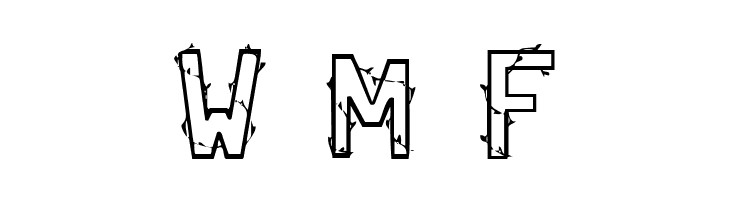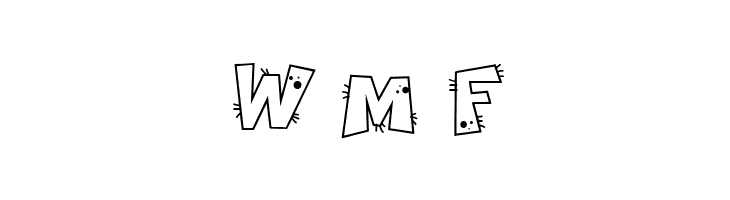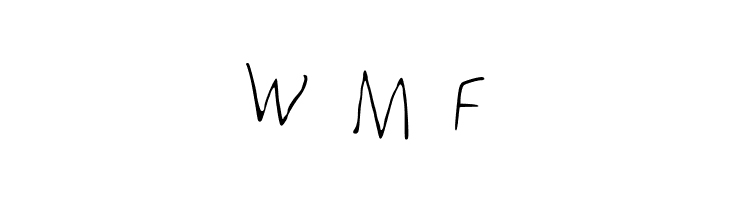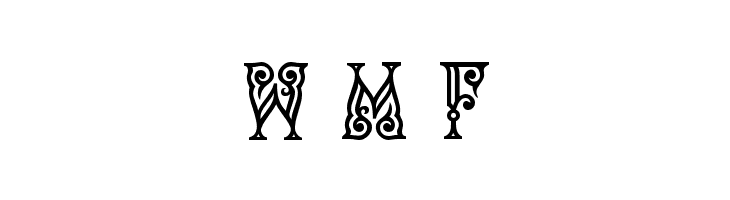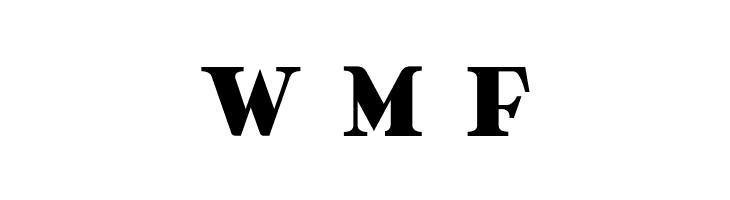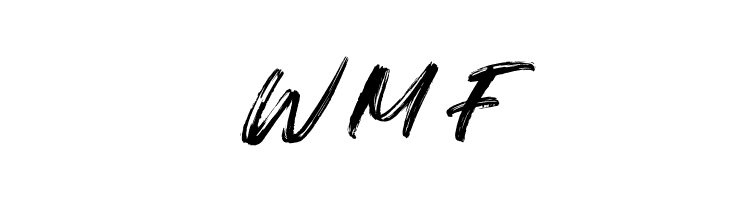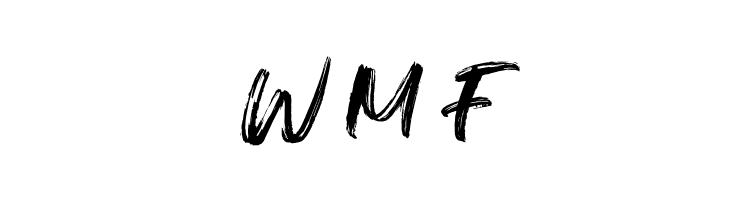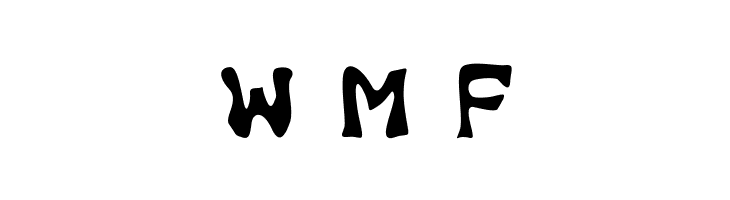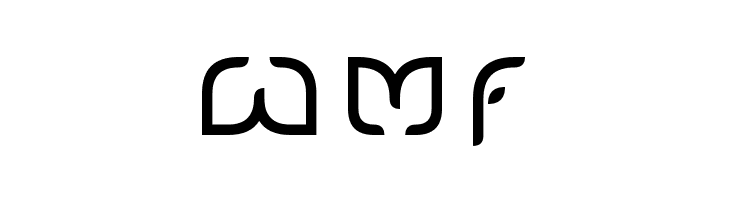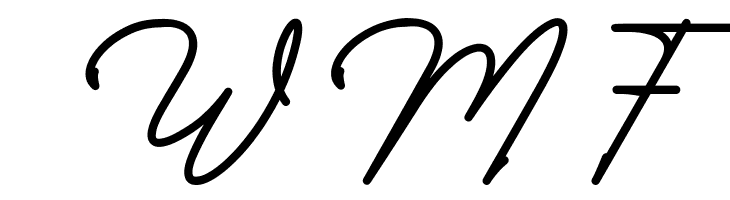
A pixelated, retro-style font with a blocky, digital appearance.
A pixelated, retro-style font with a digital, blocky appearance.
A pixelated, retro-style font inspired by early digital typography.
A pixelated, monospaced font with a retro digital style.
A playful, hand-drawn font with whimsical details and a bold, cartoonish style.
A modern, italic font with sleek, consistent strokes and a dynamic appearance.
A modern, geometric font with angular, futuristic styling.
A modern, futuristic font with bold, curved lines and a dynamic style.
A decorative font with floral and vine embellishments for a whimsical, nature-inspired look.
A decorative font with plant-like embellishments entwining each character.
A bold, medieval-inspired font with decorative swashes and sharp serifs.
An ornate, decorative font with intricate details and bold outlines.
A classic blackletter font with ornate, angular letterforms and decorative flourishes.
A playful and casual script font with flowing, connected letters.
A bold, high-contrast serif font with angular details and strong presence.
A bold, high-contrast font with a striking and impactful design.
A dynamic brush-style font with bold, expressive strokes and an artistic flair.
A bold, brush-style italic font with dynamic strokes and artistic flair.
A playful, handwritten font with bold, fluid strokes and a casual style.
An ornate blackletter font with intricate, gothic-inspired design.
Elegant cursive script with a handwritten style.
A bold, playful font with fragmented shapes creating a dynamic and energetic look.
A pixelated, retro-style font with a digital, grid-like appearance.
A decorative font featuring abstract geometric shapes and symbols.
A refined and elegant script font with flowing, cursive letterforms.
A bold, modern sans-serif font with clean lines and excellent readability.